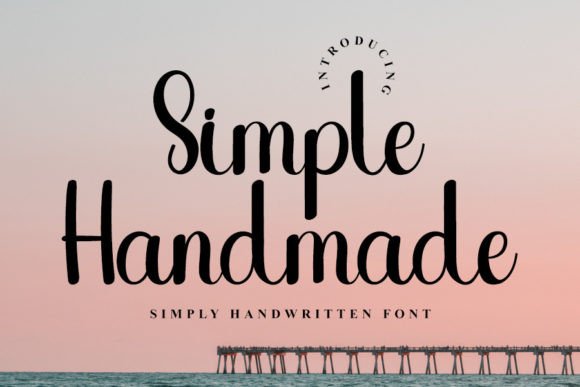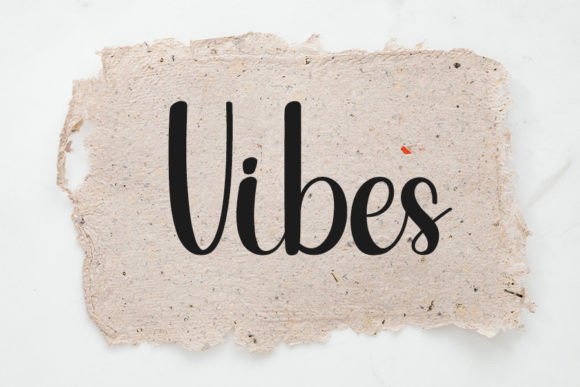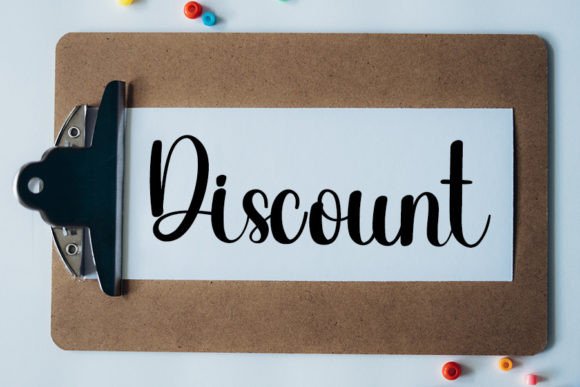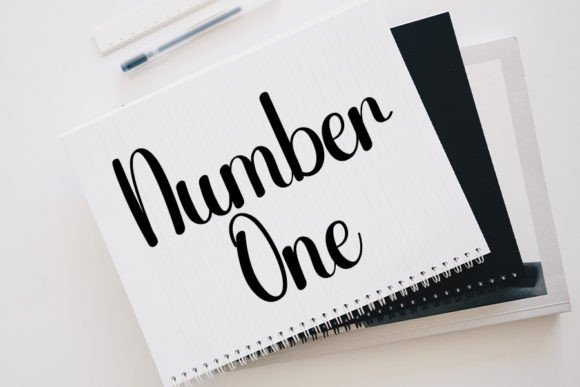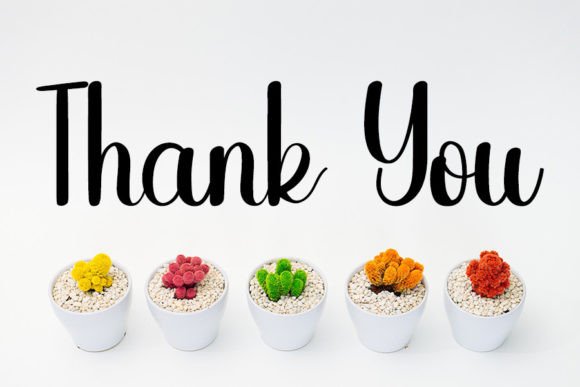
Simple Handmade Font
About Simple Handmade Font
Simple Handmade Font is a neat and beautiful handwritten typeface designed to add an elegant and personal touch to your creative projects. Its refined strokes and timeless style make it an excellent choice for designers looking to elevate their work with a script that feels both classic and fresh.
Elegant and Timeless Style
This font features clean, delicate lines that create an elegant atmosphere. The style strikes a perfect balance between simplicity and sophistication, making it ideal for a wide variety of uses—from wedding invitations to branding, and from stationery to social media graphics. Its timeless look ensures your designs remain relevant and stylish for years to come.
Versatility Across Projects
Simple Handmade Font works well on many types of projects. You can use it to craft beautiful greeting cards, eye-catching logos, personalized labels, or unique packaging. Whether your design calls for a subtle handwritten touch or a more pronounced calligraphic feel, this font adapts effortlessly.
Enhance Your Designs
Using Simple Handmade Font brings a natural, handcrafted vibe to your work. Its refined, easy-to-read letters add charm and personality without overwhelming the design. It’s perfect for those who want to communicate elegance and warmth with a handwritten feel.
Why Choose Simple Handmade Font?
Choosing this font means investing in versatility and style. It’s crafted to support your creative expression across many mediums, making every project look spectacular. Its combination of elegance and simplicity ensures it will become a staple in your font library.